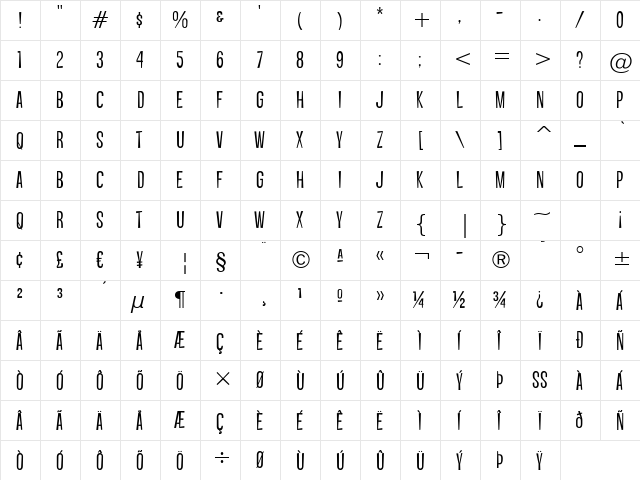
Vanishing Boy BTN Light Regular
Design Context for Vanishing Boy BTN Light Typeface
Vanishing Boy BTN Light takes a measured approach to typography — its balanced proportions and neutral character make it a reliable workhorse for both digital and print work. Its slender proportions lend an understated elegance to any composition.